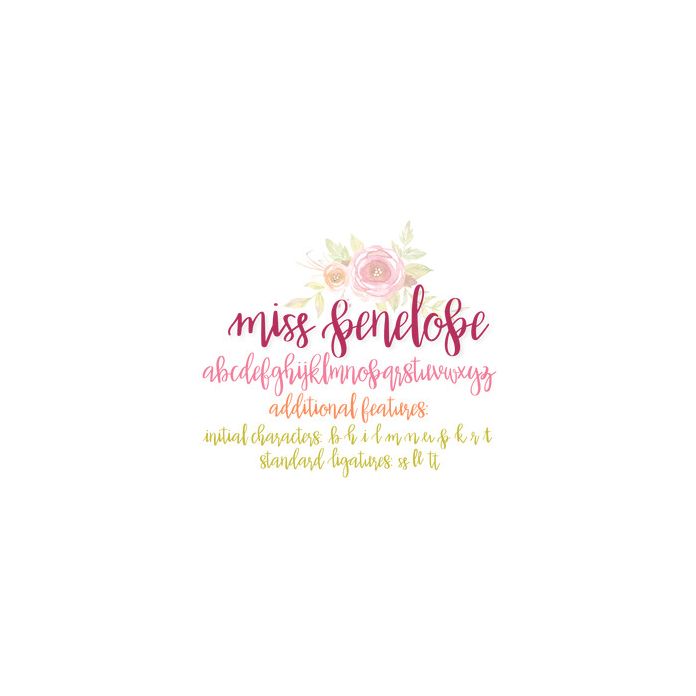
miss penelope font
A pretty, handwritten script font. This font includes some initial characters, and standard ligatures. Also includes numbers and standard punctuation.
ArtistMiss Kate Cuttables